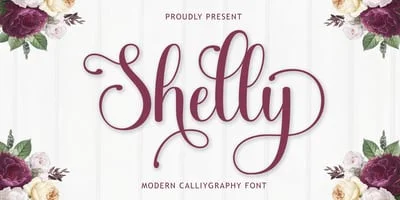
Shelly Script
Shelly Script Font
Shelly Script Font is perfect for handwritten-style logos, personal branding projects, artisan product packaging, boutique business cards, custom calligraphy designs, and elegant signature-style graphics.
Shelly Script Font is exciting because it beautifully mimics authentic handwriting with natural flow and organic character variations, creating an intimate and personal connection between your brand and audience.
The Shelly Script Font family includes versatile variations: Shelly Script Regular, Shelly Script Bold, contextual alternates, ligatures, and decorative swashes that enhance the handcrafted calligraphy aesthetic.
Create authentic connections with Shelly Script Font, a charming handwritten typeface that brings personal warmth and genuine character to your design projects. This delightful font excels in crafting memorable identities for coffee shops, handmade craft businesses, personal blogs, and small artisan companies that value authentic human touch over corporate sterility. The naturally flowing letterforms feature realistic pen strokes and subtle imperfections that make digital text feel genuinely hand-lettered, while ensuring smooth readability across print and screen applications. Perfect for thank-you notes, personalized invitations, artisanal food packaging, and social media quotes that need to feel heartfelt and genuine, this font communicates sincerity and craftsmanship with every stroke. Each character carries the warmth of human touch, making branded communications feel like personal correspondence from a trusted friend. Shelly Script Font transforms professional messaging into intimate conversations that build lasting relationships with your audience.